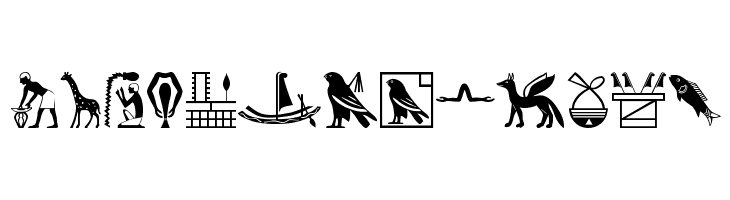
A collection of silhouette illustrations depicting dynamic scenes and characters.
( Fonts by David Rakowski )
A decorative font with swirling embellishments and bold, high-contrast strokes.
A whimsical display font made up of diverse hand gesture illustrations.
A collection of decorative symbols with intricate, kaleidoscopic designs.
( Fonts by Graham Meade - GemFonts )
A futuristic, angular font with a hollow, outlined design.
An artistic, hand-drawn font with angular, whimsical characters.